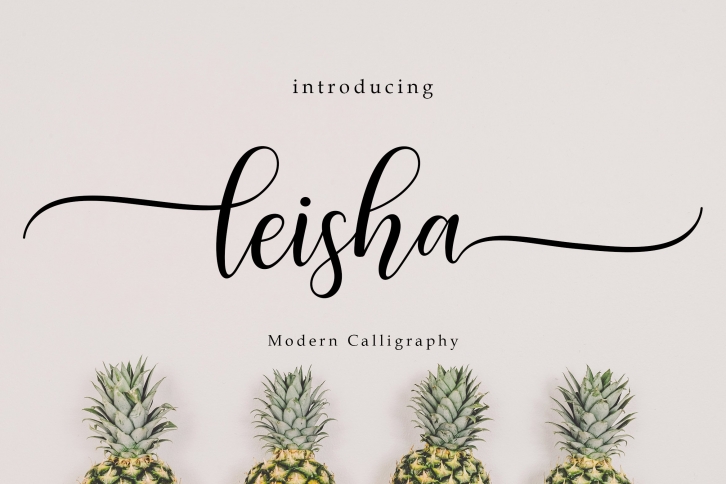
Leisha Script is a gorgeous font that was realeased on November 11, 2020. The font can be used in many style contexts and design environments. Perfect for invitations, magazines, websites, logos, and more! It was designed by Takiy and the file size is 21.1 MB. Thanks for checking out this font!